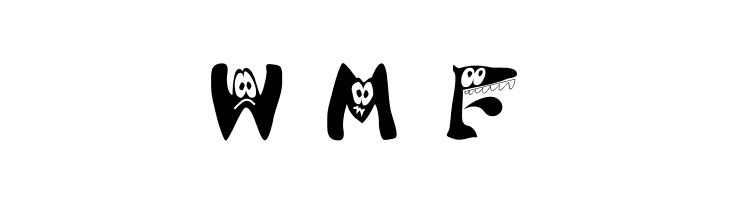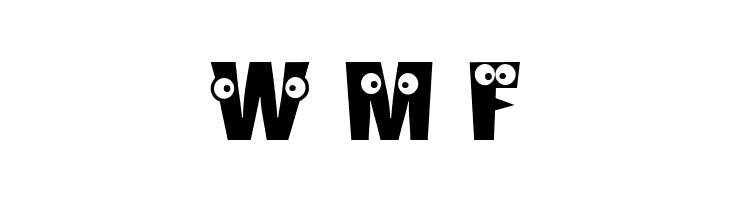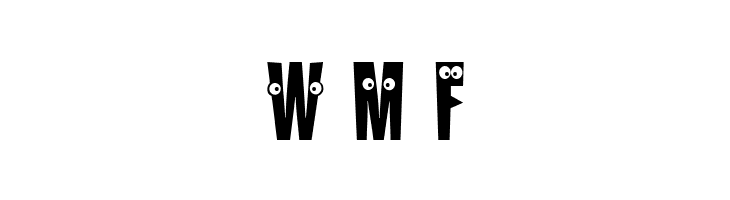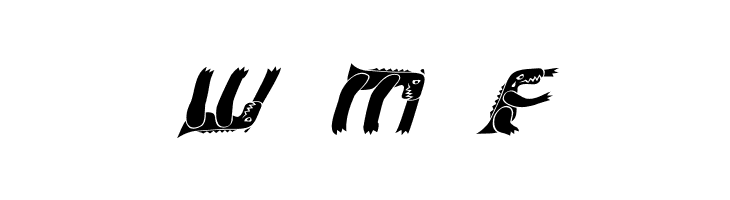
KASnake Font
A playful, snake-themed font with bold, dynamic characters.
KAStorm Font
A bold, dynamic font with storm-themed uppercase letters and clean sans-serif lowercase characters.
KADinoSob Font
A playful, dinosaur-themed decorative font with bold, rounded lowercase letters.
KAHorrible Font
A playful, cartoonish font with animated uppercase letters and bold lowercase characters.
KAMonster Font
A playful, monster-themed font with bold, rounded characters.
KAPastaAldente Font
A whimsical, pasta-themed decorative font with playful swirls and smooth curves.
KAStormRain Font
A bold, decorative font with cloud-like uppercase letters and solid lowercase characters.
KABlokHeadJam Font
A bold, playful font with quirky eye motifs in uppercase letters.
KAHorribleSquish Font
A playful font with animated uppercase letters and bold, clean lowercase characters.
KABlokHead Font
A bold, playful font with eye-adorned uppercase letters and solid lowercase characters.
KADinoSlay Font
A bold, decorative font with ornate uppercase and traditional serif lowercase.